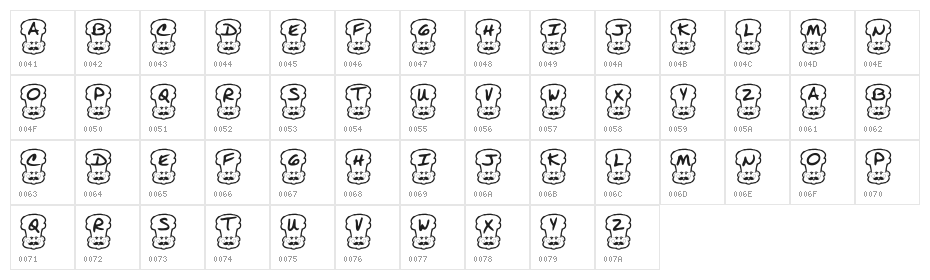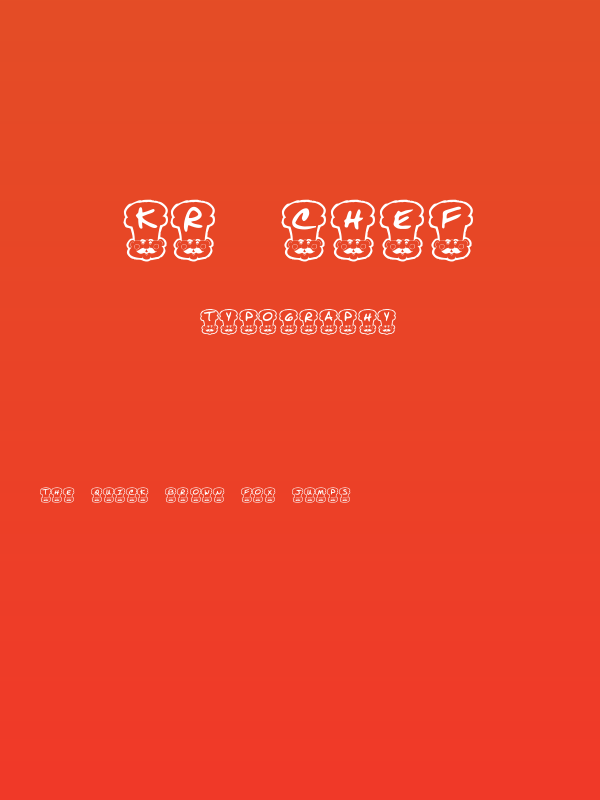
KR Chef Font
KR Chef Description
This playful and whimsical font features each character enclosed within a chef's hat, adding a unique and fun element to the design. The letters are bold and rounded, giving them a friendly and approachable appearance. The font is highly decorative, making it ideal for projects that require a touch of humor or creativity. Each character is distinct, yet they all maintain a cohesive style due to the consistent chef hat motif. This font is perfect for children's books, culinary-themed projects, or any design that aims to evoke a sense of fun and imagination.
| Proposed Projects | Ideal for children's books, culinary-themed branding, playful posters, and creative invitations. |